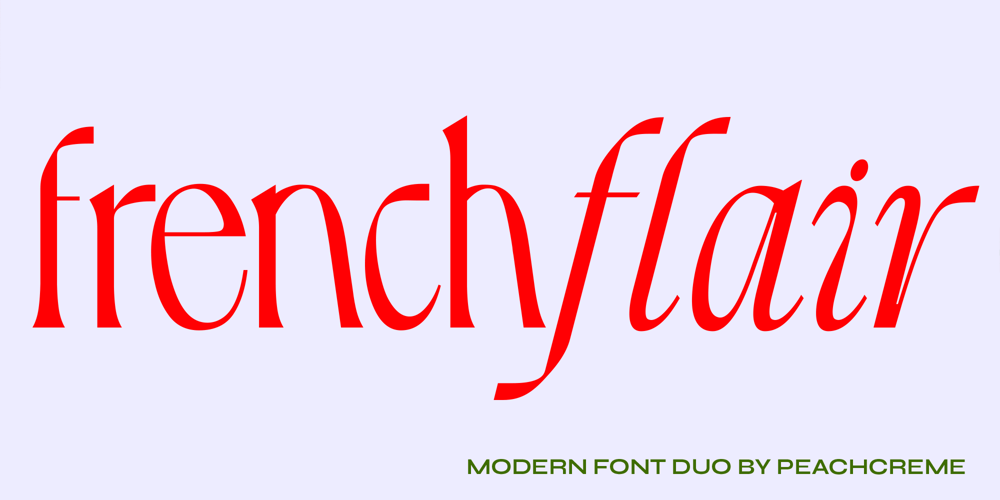
French Flair Font Family was designed by Gulya Yeap and published by PeachCreme. French Flair contains 2 styles and family package options. “French Flair” is our latest font pair! With a graceful decorative serif and contrasting light and crisp italic, French Flair duo can be handy in any trending design project.